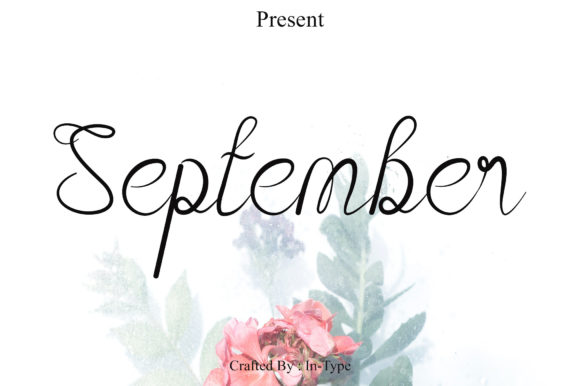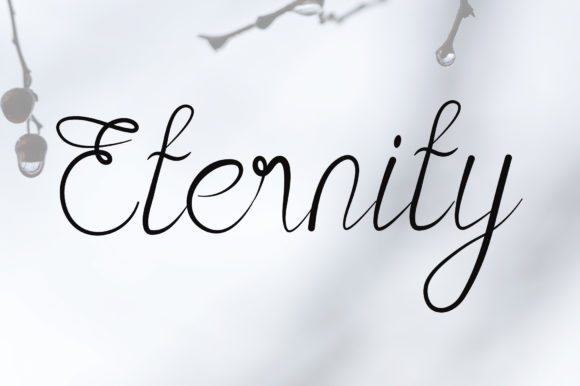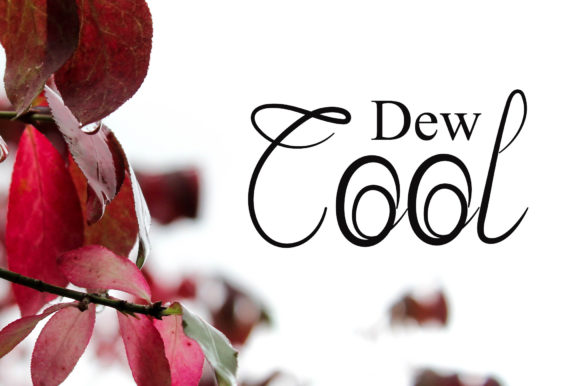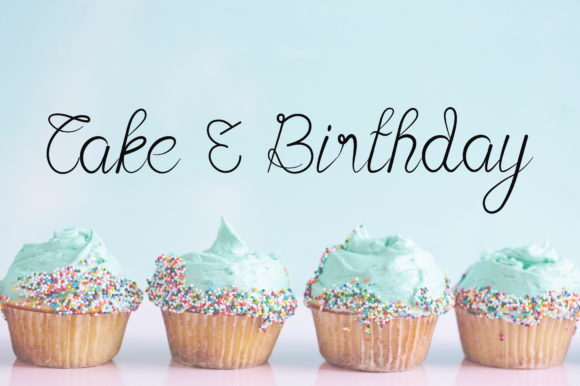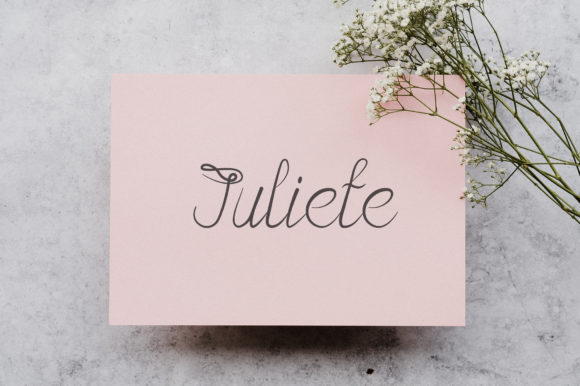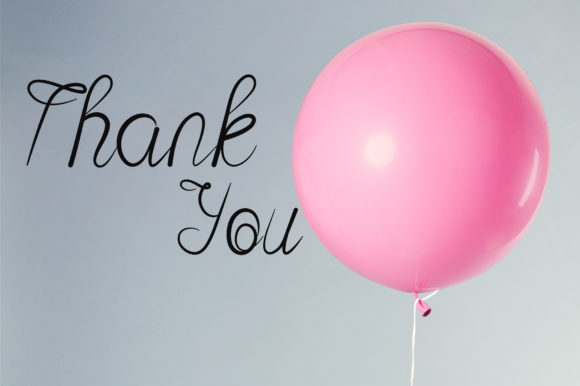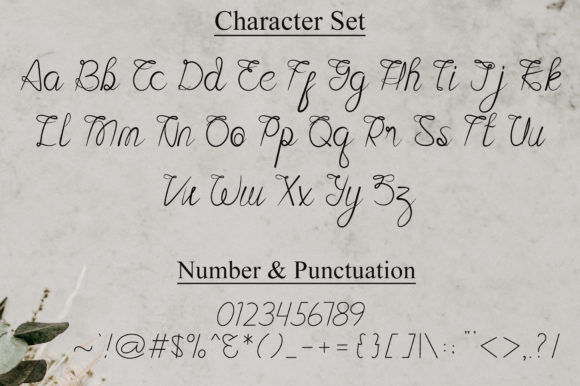
September Font
About September Font
SeptemberĀ is an exquisite handwritten font, masterfully designed to become a true favorite. It maintains its classy calligraphic influences while feeling contemporary and fresh. Fall in love with it and bring your projects to the highest levels!